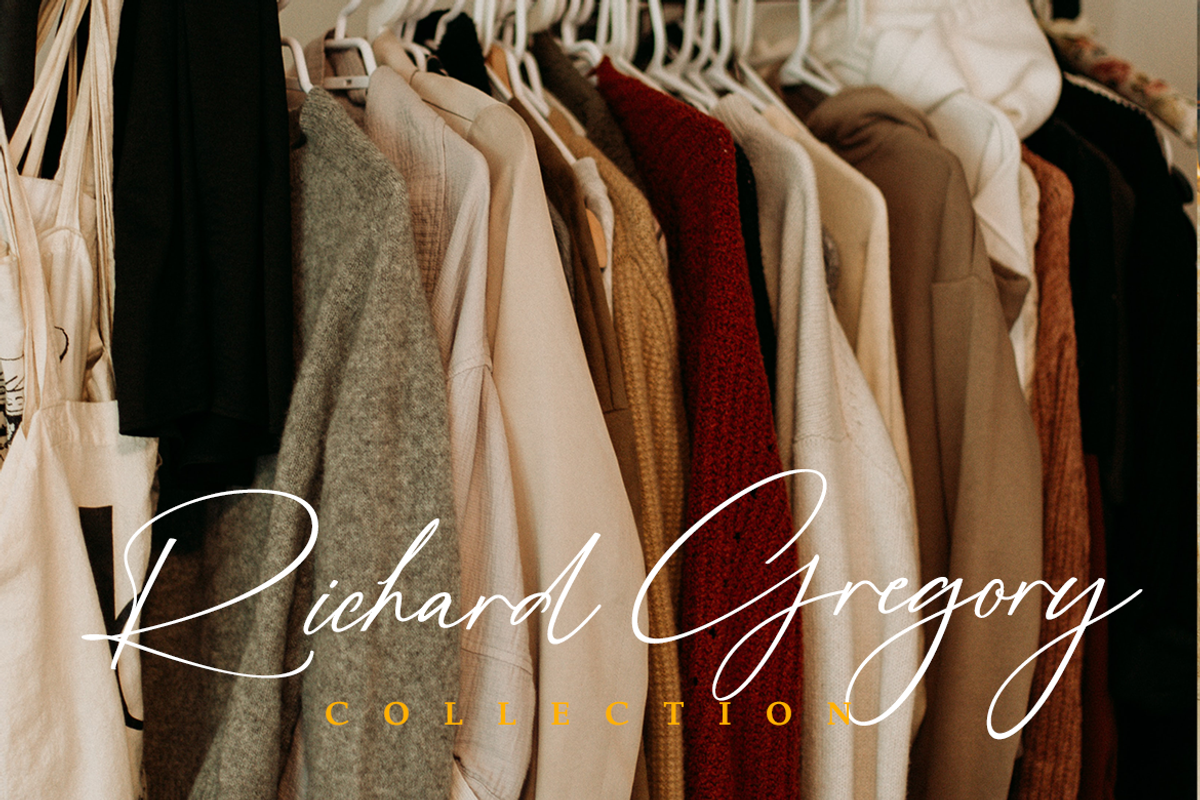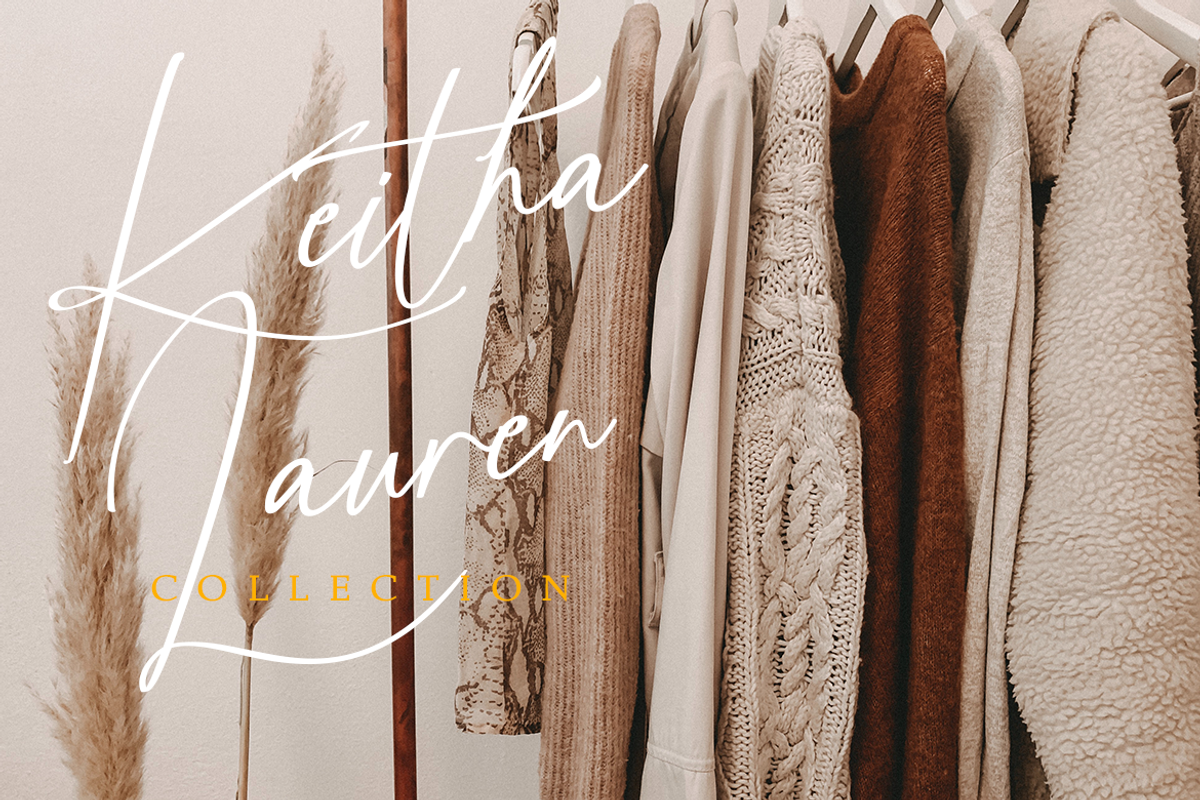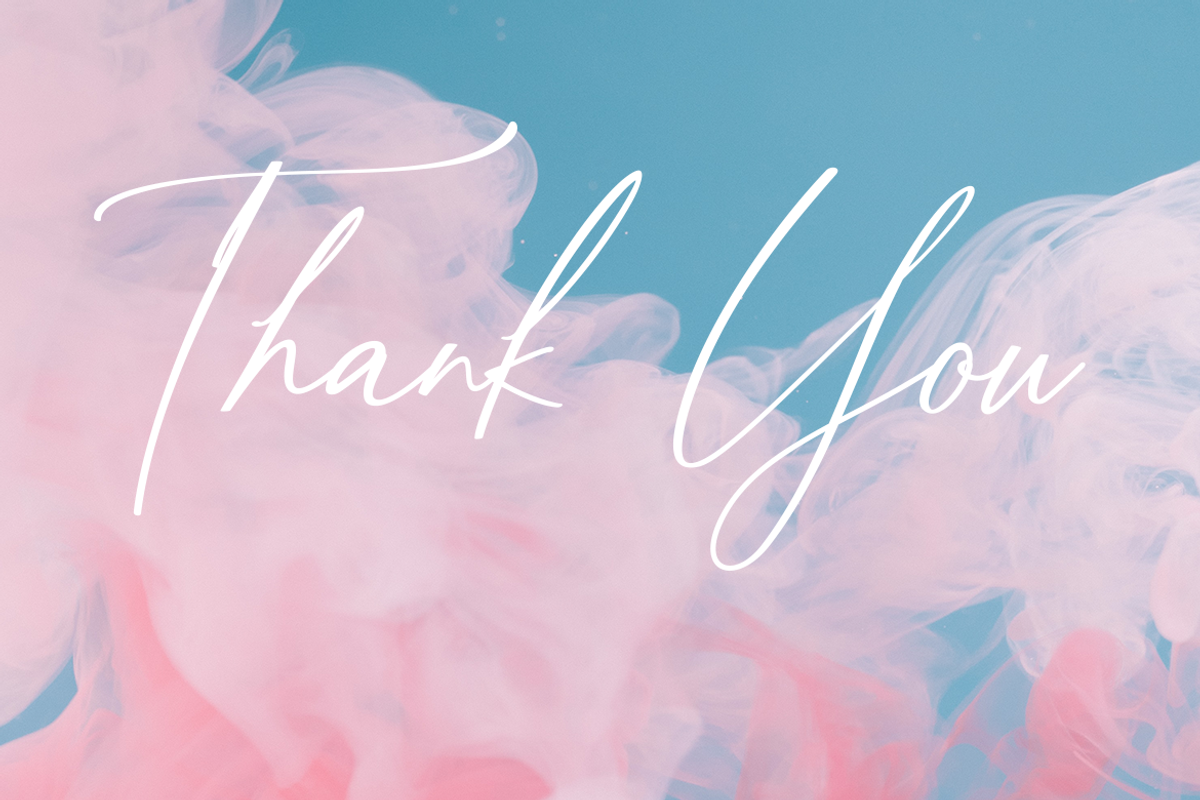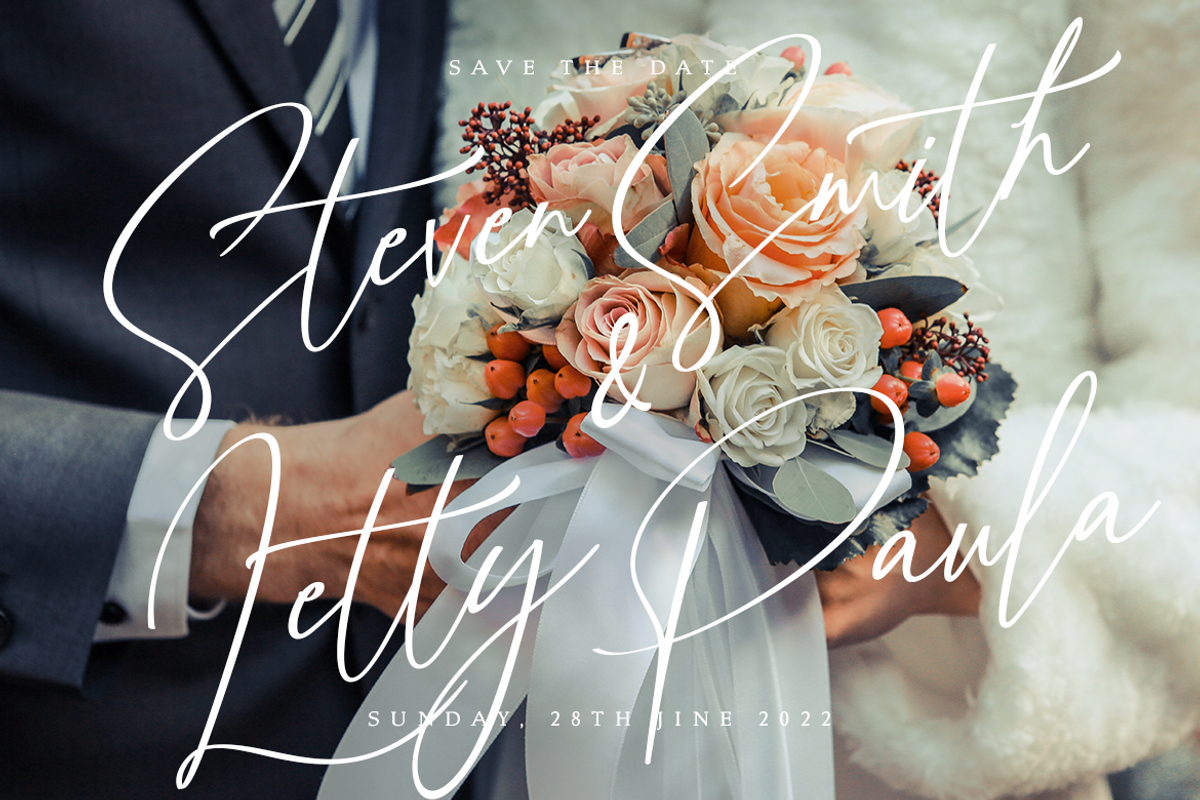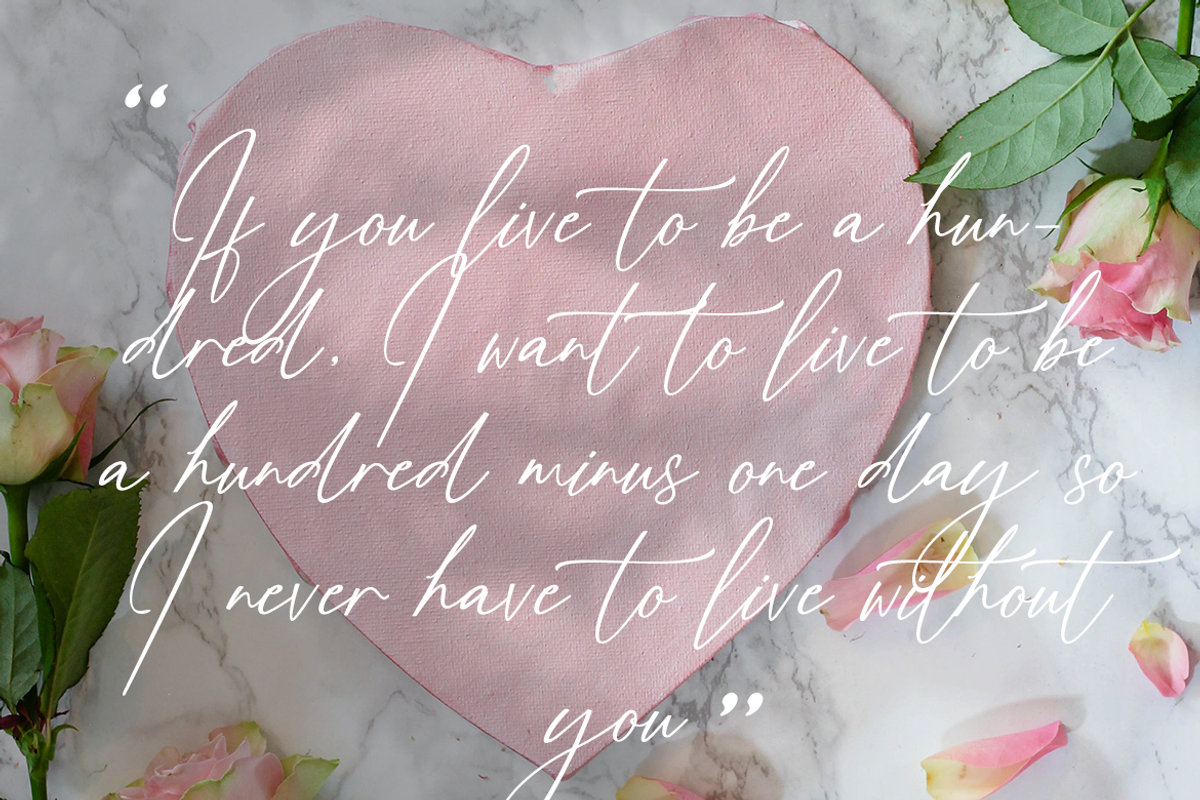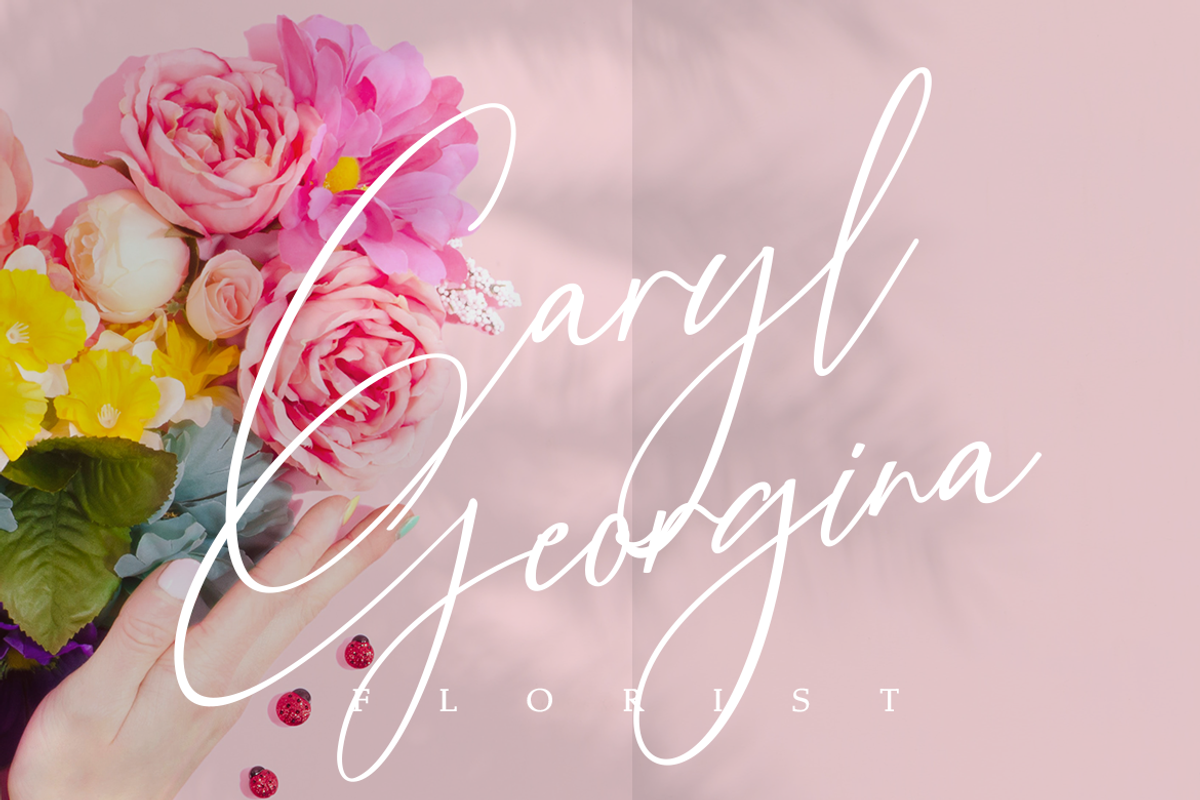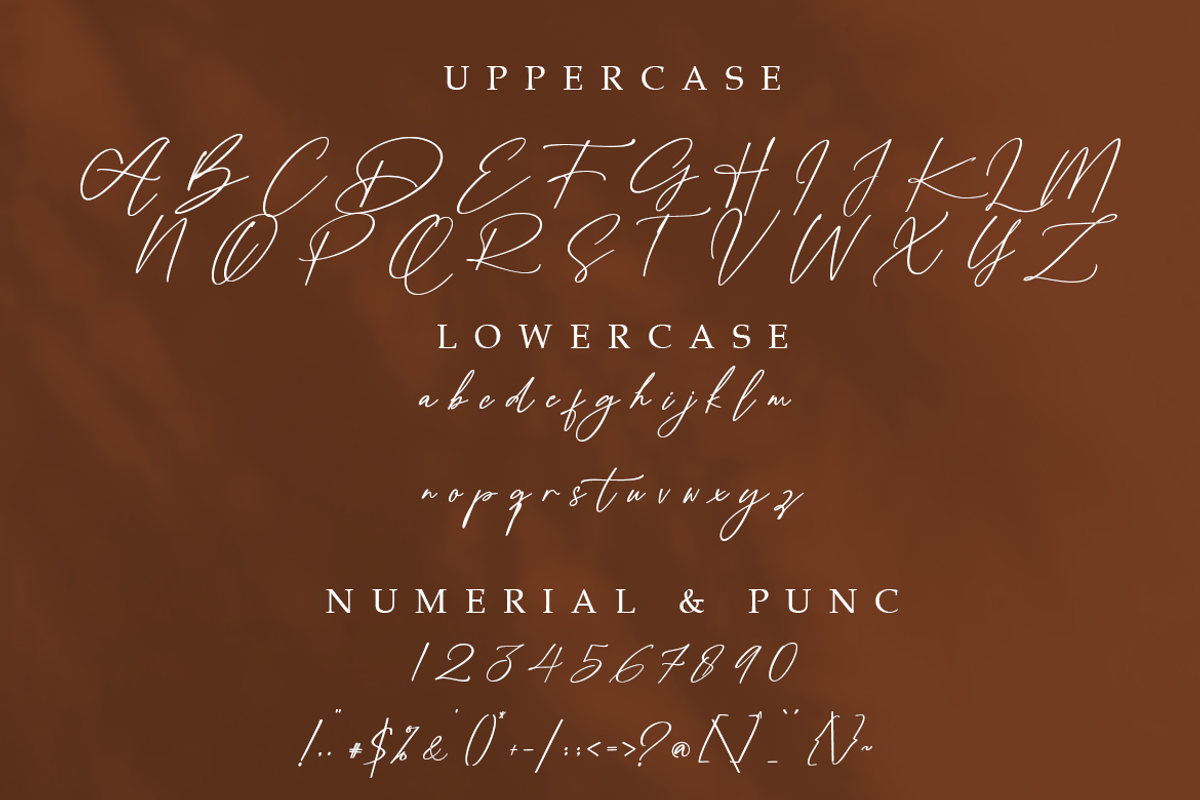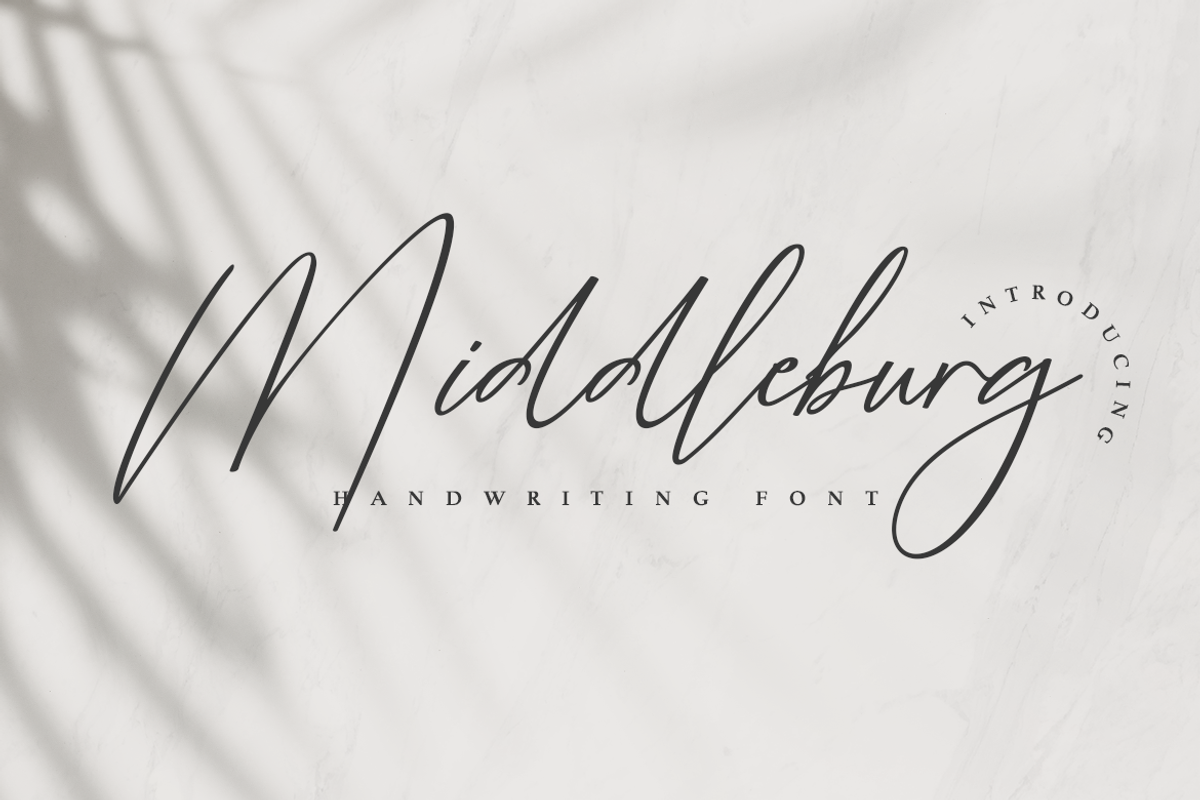
Middleburg Handwriting Font
This exquisite handwritten font is full of character and charm, with elegant curves and delicate strokes that convey a sense of luxury and sophistication. Its flowing, organic style evokes the feel of a handwritten note, making it perfect for adding a personal touch to invitations, packaging, and branding materials.